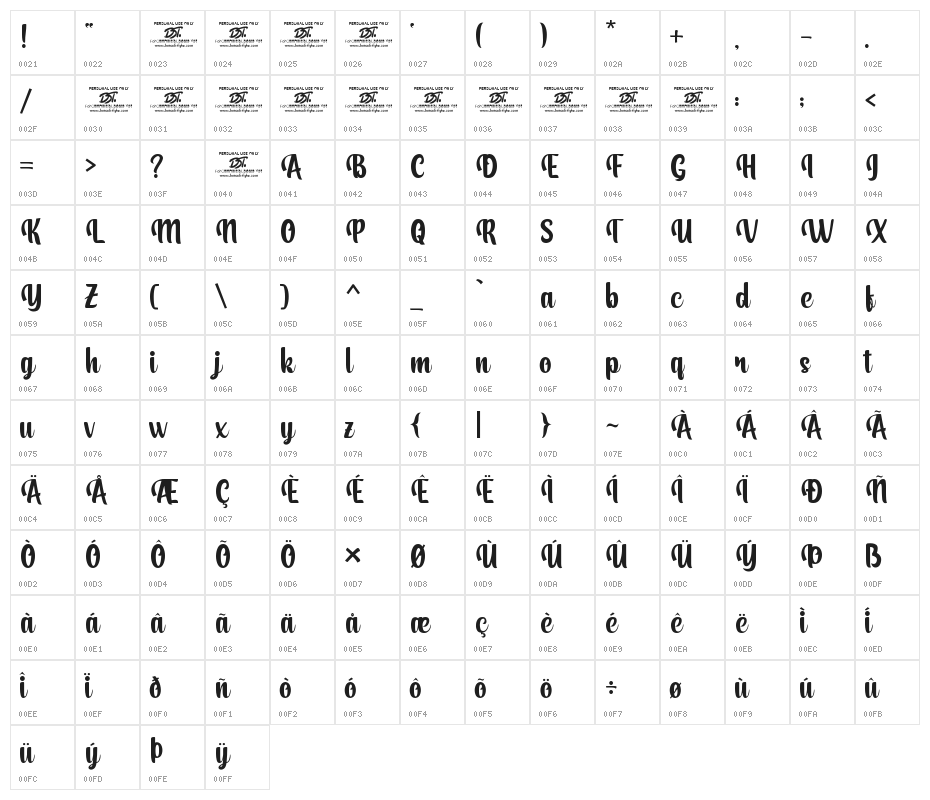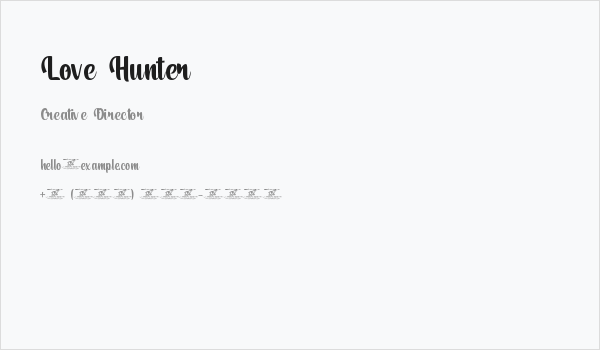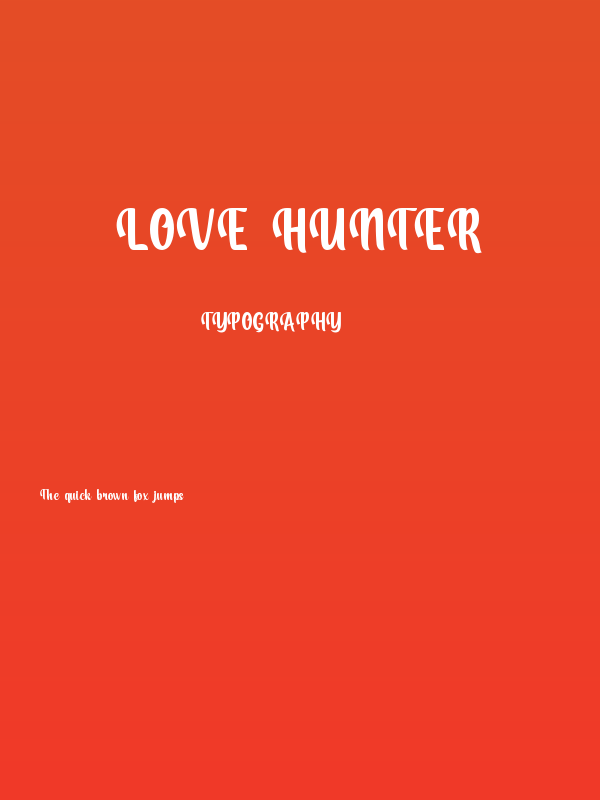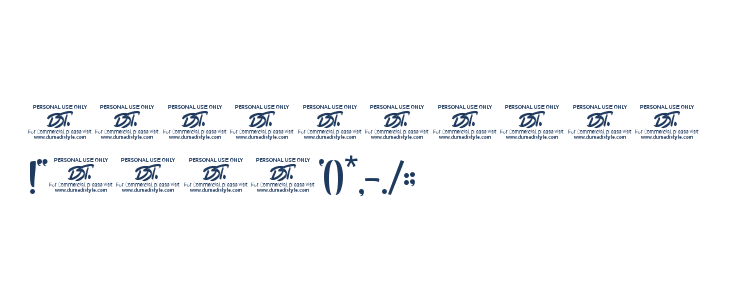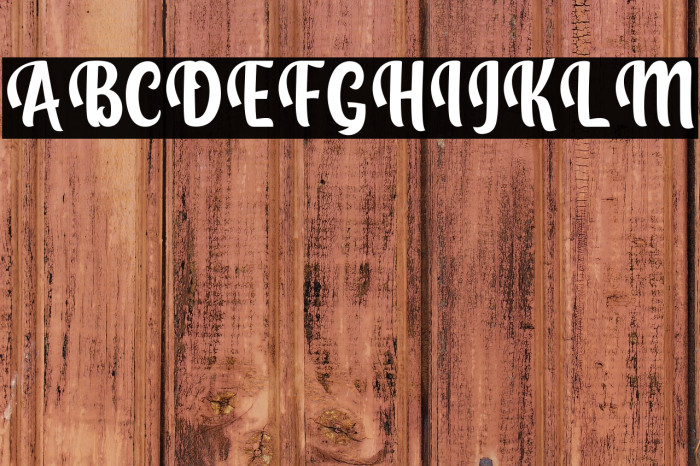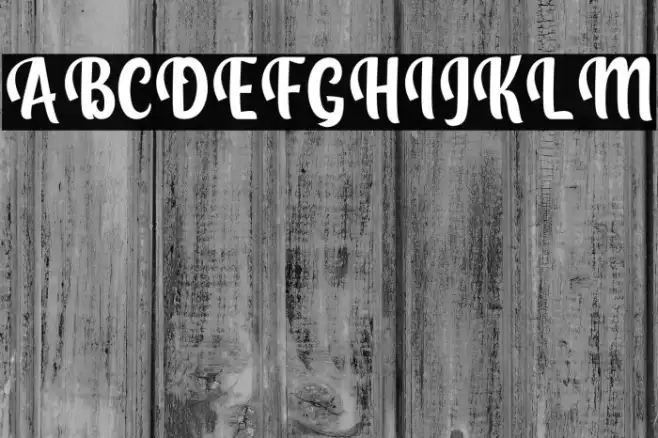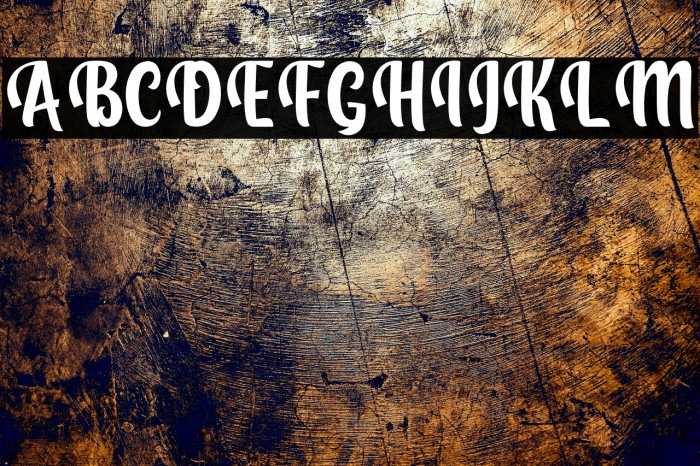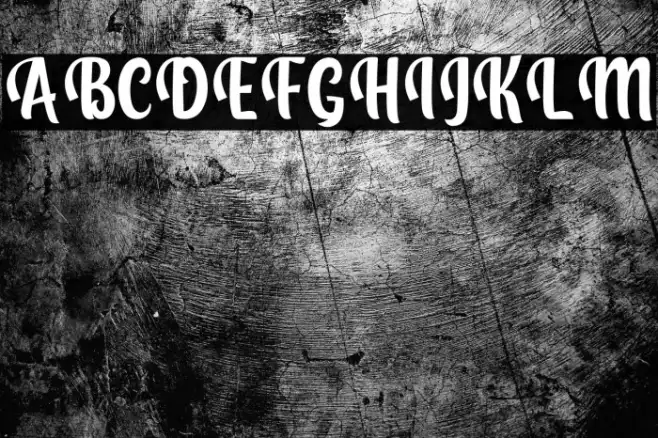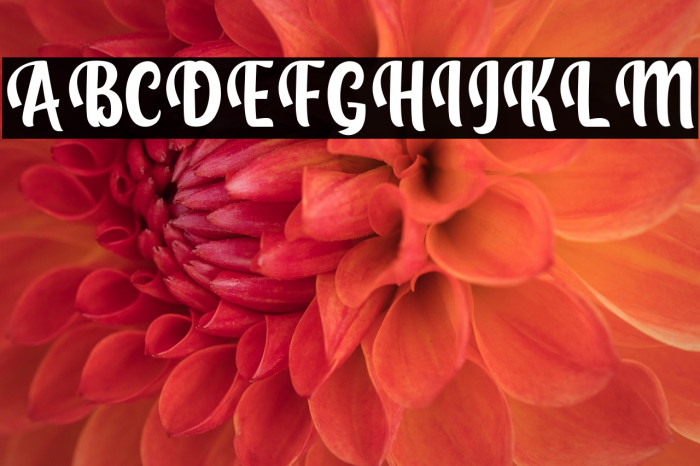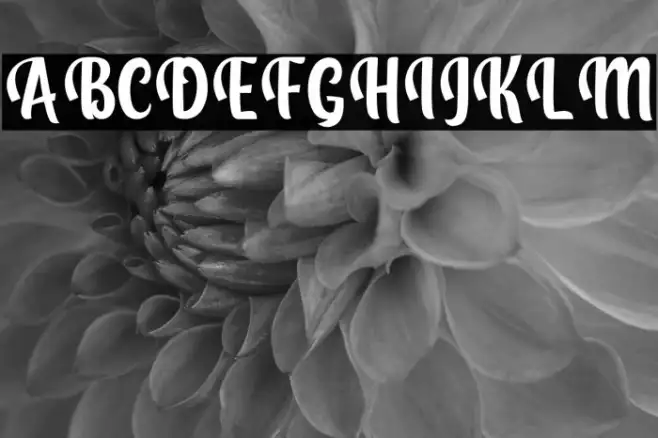
Love Hunter Font
Love Hunter Description
This font features a bold, flowing script style with a playful and romantic flair. The uppercase letters are characterized by their dramatic curves and loops, giving them a whimsical and elegant appearance. The lowercase letters maintain a consistent flow, complementing the uppercase with their rounded forms and smooth connections. The numbers and special characters follow the same stylistic cues, ensuring a cohesive look across all text. This font's design is both eye-catching and versatile, suitable for a variety of creative applications.